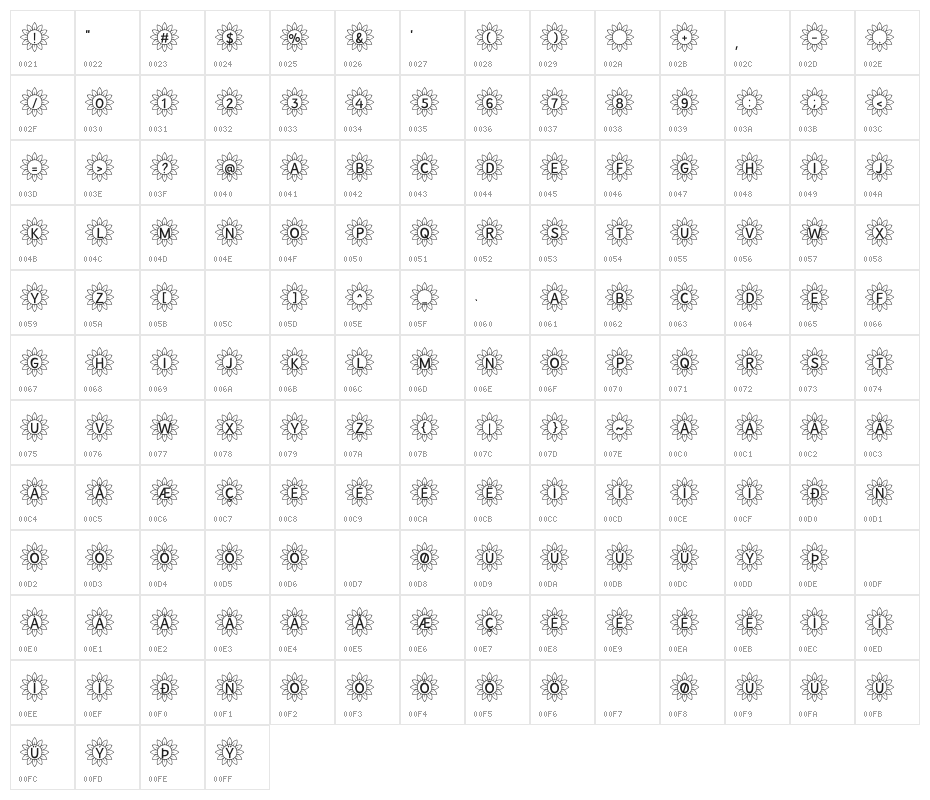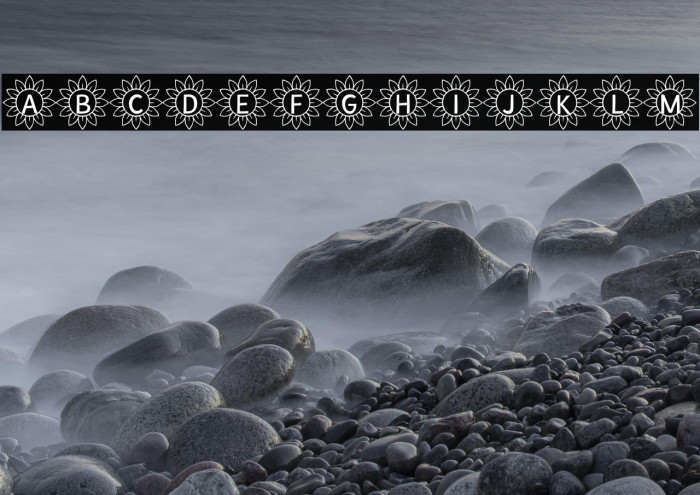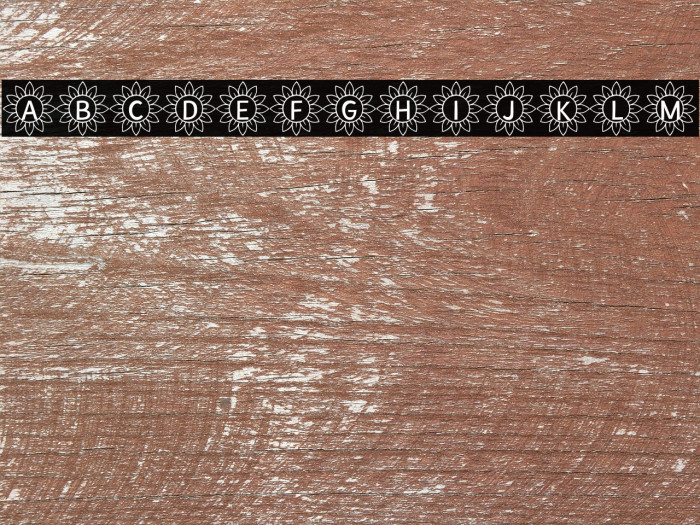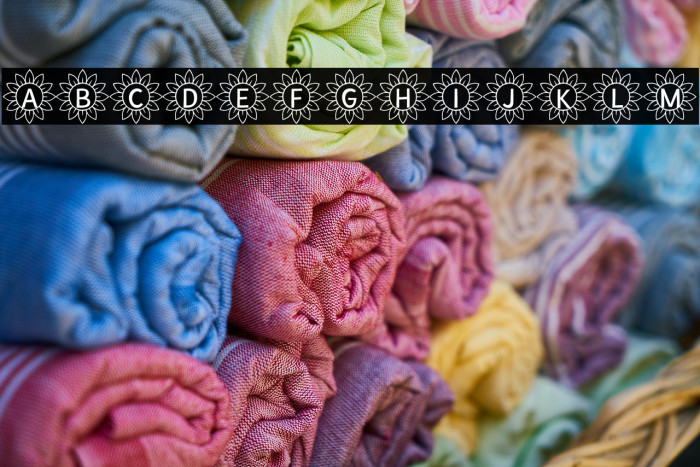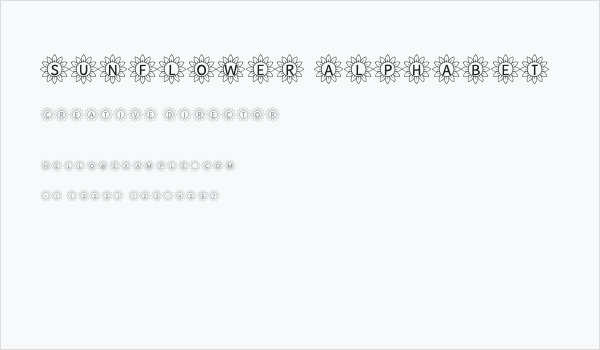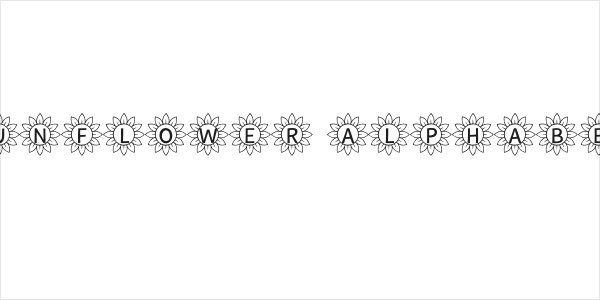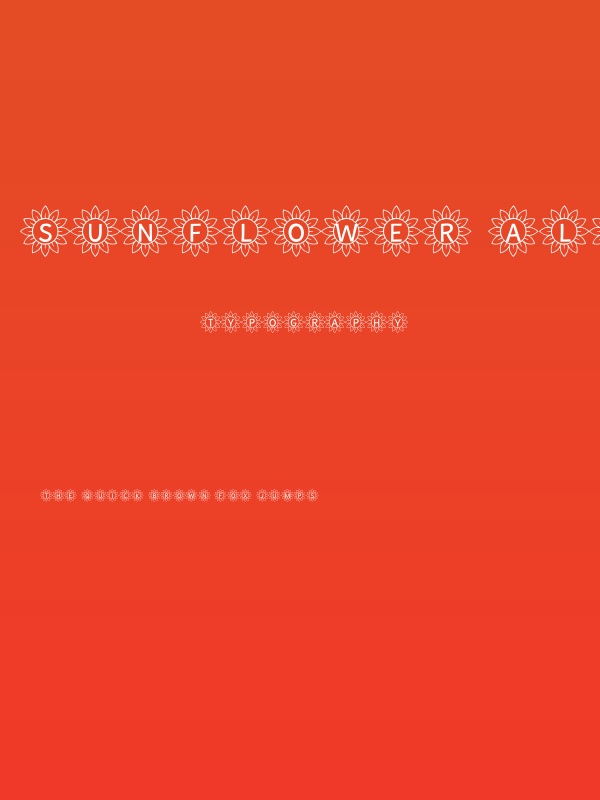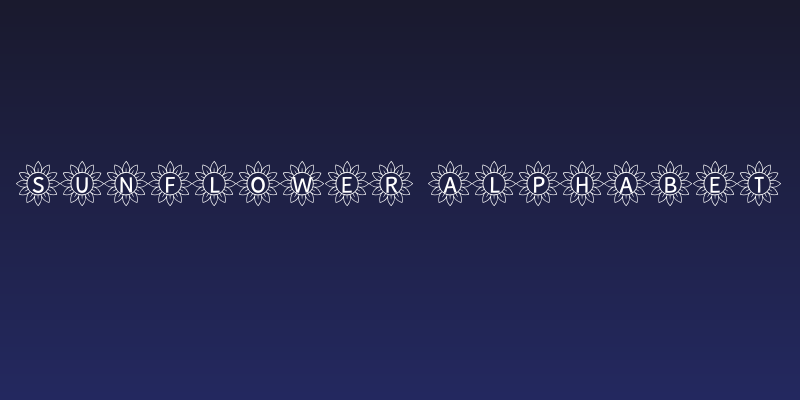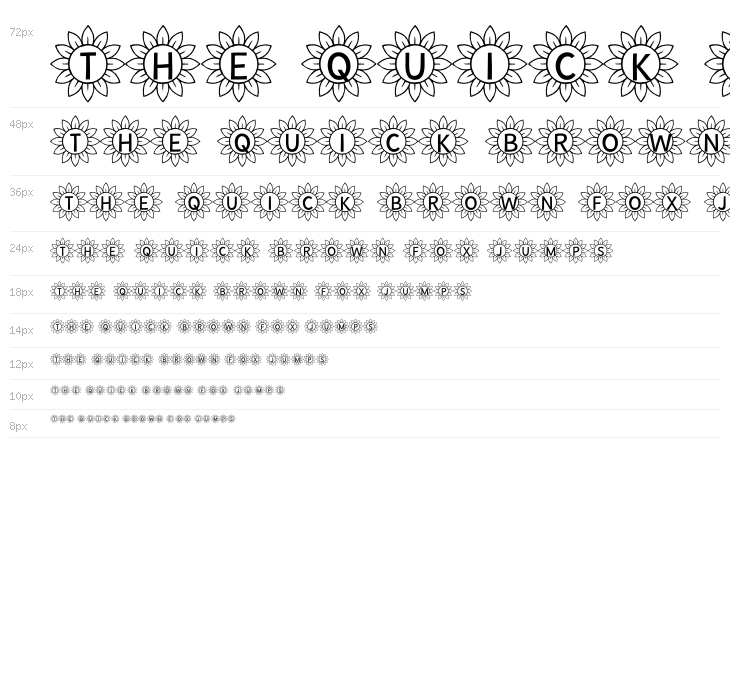
Sunflower Alphabet Font
Sunflower Alphabet Description
A decorative font where each character is encased within a sunflower design, creating a playful and floral aesthetic.
| Use Case | Logos, Titles, Decorative text |
| Proposed Projects | Greeting cards, children's books, decorative posters. |